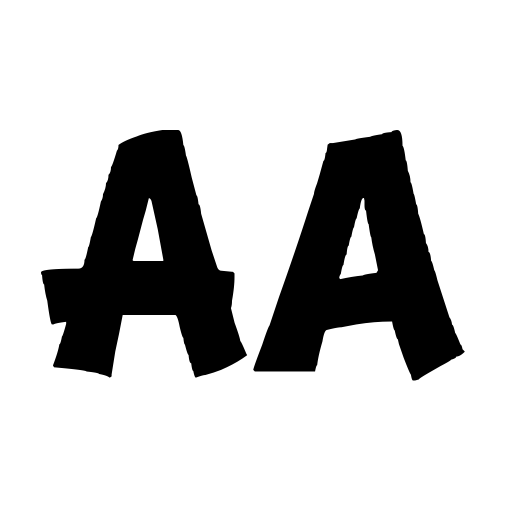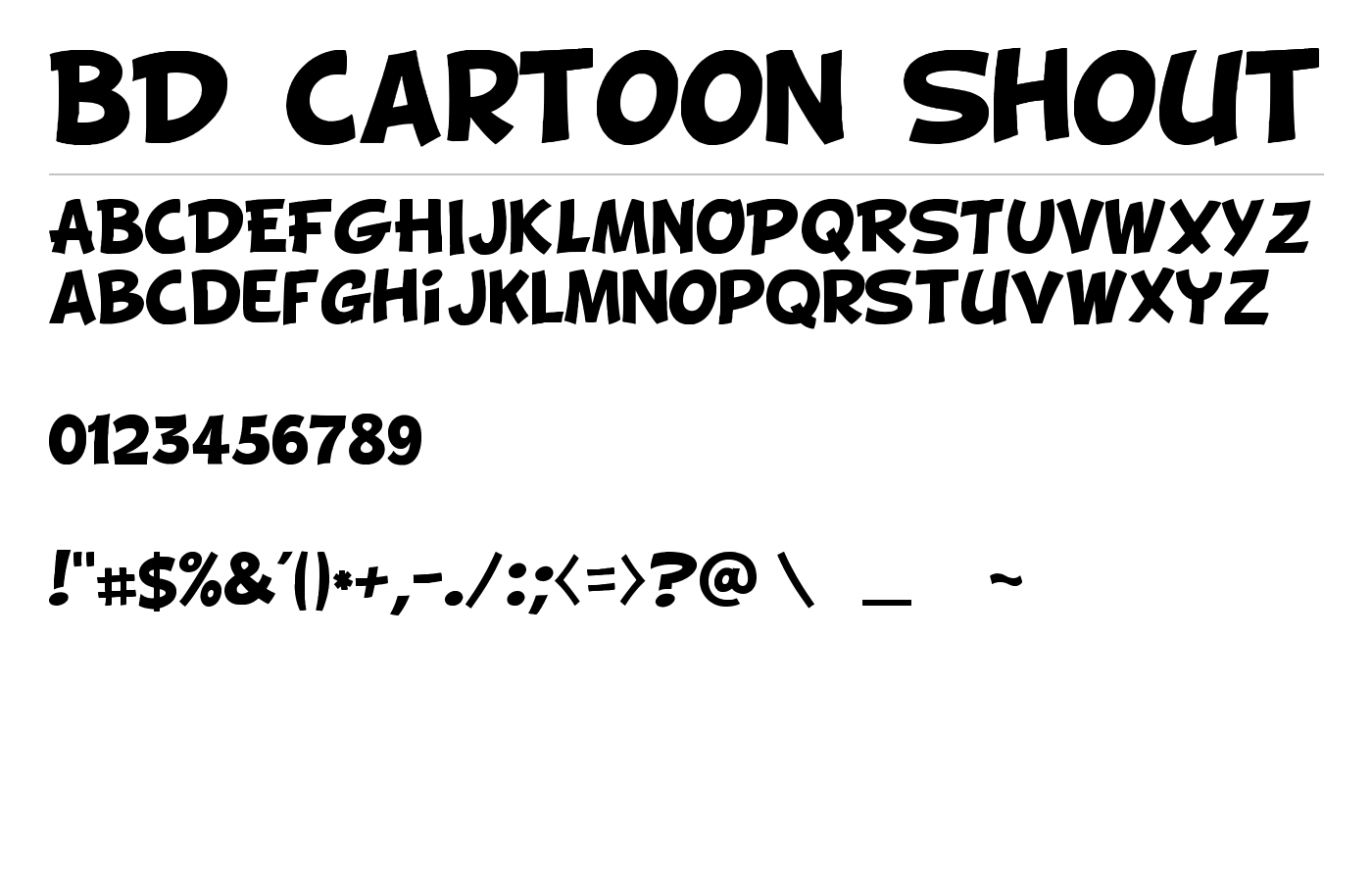
BD Cartoon Shout is a bold, playful sans serif font with a fun, hand-drawn vibe that mimics comic book lettering. Its chunky, uneven letterforms and lively curves make it perfect for informal, energetic designs like kids’ books, posters, and playful branding. This font shines in headlines and display settings where a casual, eye-catching style is desired.
BD Cartoon Shout Font